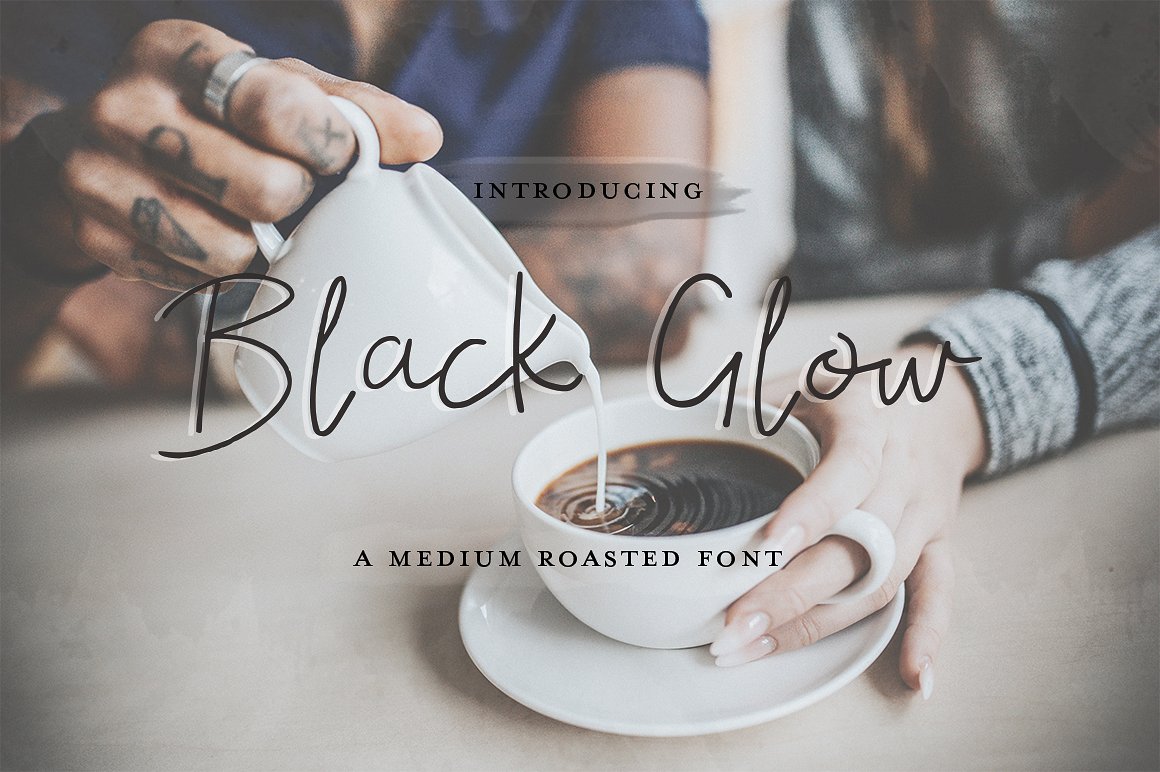
The Ultimate Design Companion: Black Glow Font
Ah, the life of a designer! Can’t start the day without a cup of coffee, and often, can’t finish a project without one (or two, or three…). I recall a particularly grueling design session where I was struggling to find the perfect font for a client’s branding project. The client wanted something that exuded warmth, energy, and playfulness, but I was coming up blank. That’s when I stumbled upon the Black Glow Font, and let me tell you, it was love at first sight! ✨
So, what makes Black Glow so special? Here’s what I love about it:
• ✨ Unique Handwritten Style: Black Glow boasts a distinctive, hand-crafted feel that’s perfect for adding a personal touch to your designs.
• ✅ High-Quality Roast: The font is meticulously crafted with attention to detail, ensuring that it looks great in various sizes and resolutions.
• 💡 Versatile: Whether you’re working on a branding project, crafting a social media post, or creating a DIY craft, Black Glow adapts seamlessly to different contexts.
Of course, no font is perfect, and Black Glow has a few minor quirks:
• 🤔 Limited Formality: While Black Glow excels in informal settings, it might not be the best fit for more formal or corporate designs.
• ⚠️ Glyph Overload: With so many glyphs and stylistic alternates to explore, it can be overwhelming to navigate the font’s full potential.
Legend has it that the creator of Black Glow Font was a late-night coffee aficionado, fueled by caffeine and a passion for typography. As the story goes, they spent countless hours perfecting the font’s unique blend of playfulness and sophistication. Whether or not that’s true, one thing is certain: Black Glow is a masterpiece that’s sure to delight designers and coffee lovers alike. ☕️
What makes Black Glow so unique? Black Glow’s distinctive handwritten style, high-quality craftsmanship, and versatility make it a standout font.
Is Black Glow suitable for body text? While Black Glow is primarily designed for headings and titles, it can be used for body text in certain contexts, such as creative writing or artistic projects.